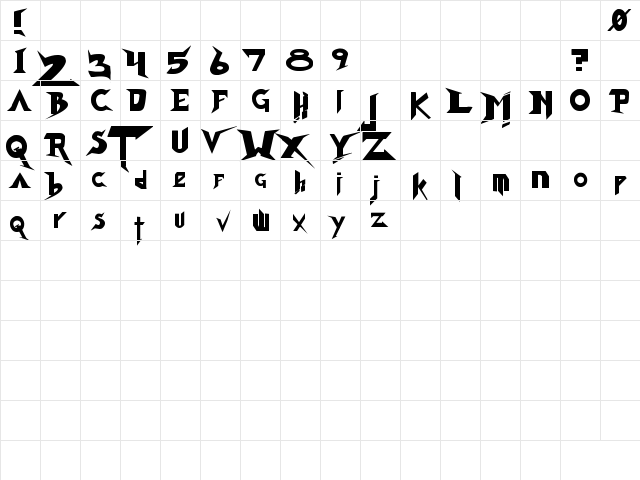
Endbuster Regular
Design Context for Endbuster Typeface
Endbuster is a composed and adaptable typeface that performs quietly and consistently across a wide range of design contexts.